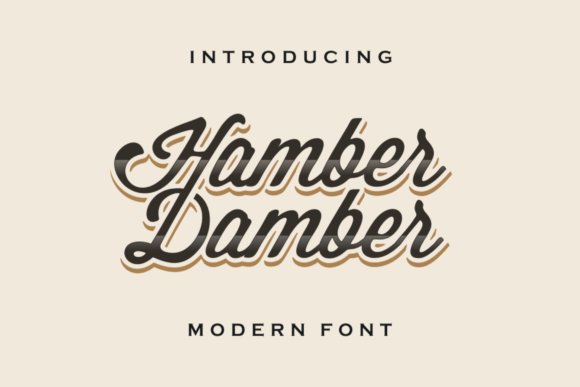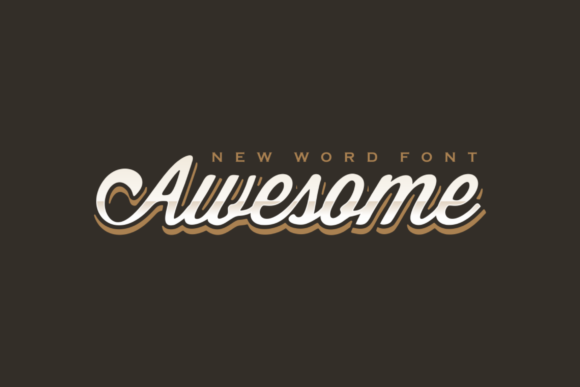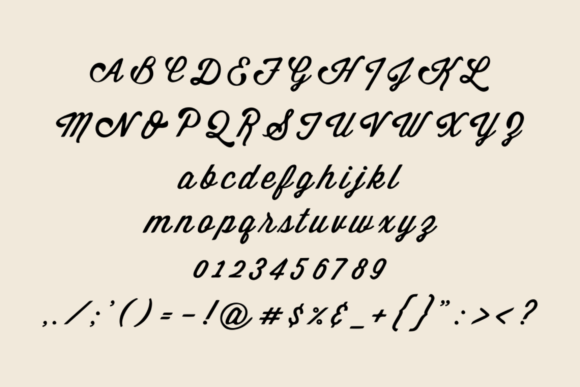
Introduction to Hamber Damber Font
Hamber Damber is a bold and authentic script font.
The font is suitable for any branding project like logos, t-shirt printing, sports, and many more It looks outstanding in a wide range of contexts.
Key Features of Hamber Damber Font